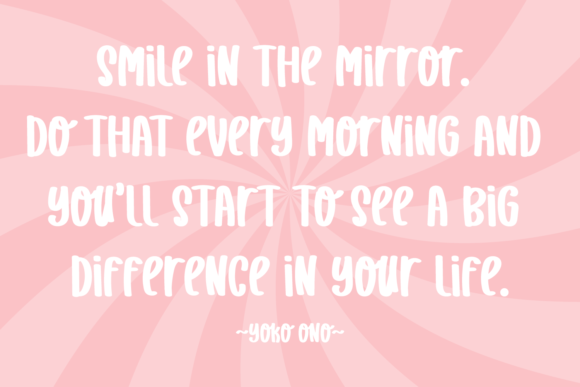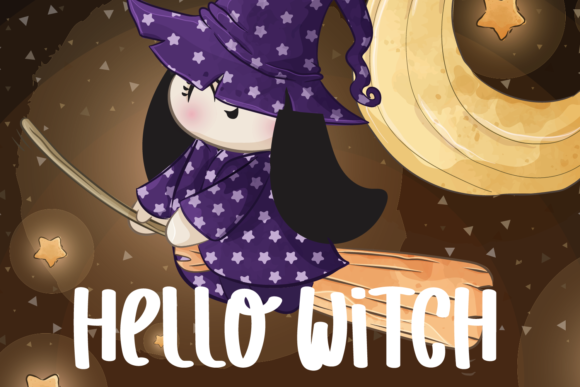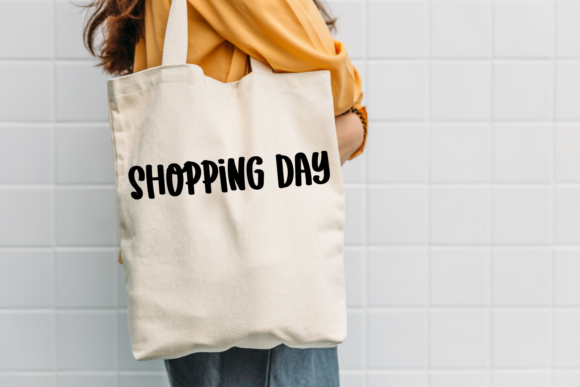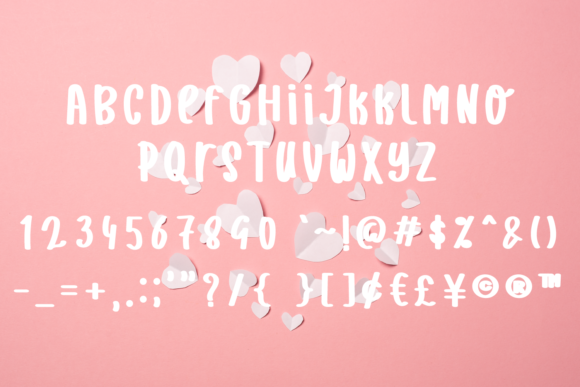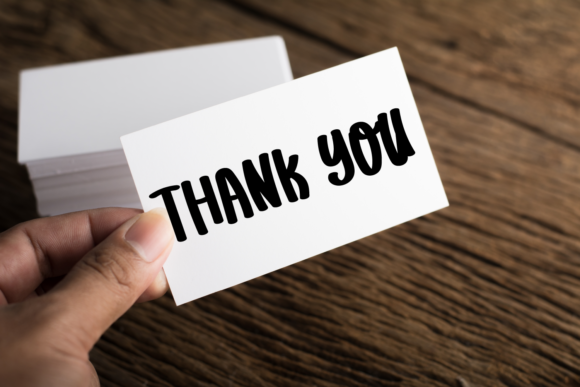
The Sweetest Addition to Your Design Arsenal
Have you ever been rummaging through your craft supplies, only to stumble upon a stash of colorful papers and fonts that instantly spark creativity? That’s exactly what happened to many designers when they discovered the Candy Witch Font – a delightful display font that brings a touch of whimsy to any project.
Whether you’re a seasoned graphic designer or a crafty hobbyist, the Candy Witch Font is a valuable addition to your toolkit. This friendly font is perfect for creating eye-catching greeting cards, designing engaging presentations, or even adding a pop of color to your digital designs. Its playful and approachable nature makes it an ideal choice for projects that require a touch of warmth and personality.
Candy Witch Font Key Features
- Unique Characteristics: The Candy Witch Font features a whimsical, hand-drawn design with bold lines and playful flourishes, perfect for adding a touch of magic to your designs
- Style Options: The font comes in multiple styles, including Regular, Bold, Italic, and Bold Italic, offering versatility in design applications
Candy Witch Font Review
I recently had the chance to work with the Candy Witch Font, and I must say, it’s a real treat (pun intended). ✨ The font’s playful and whimsical vibe immediately caught my attention, and I was excited to see how it would perform in various design projects.
- ✨ The font’s bold and colorful aesthetic is perfect for creating eye-catching headlines and titles.
- ✨ The variety of font weights and styles offers plenty of options for customizing the look and feel of your design.
- ✨ The font’s quirky and charming personality makes it a great choice for projects that require a bit of whimsy and fun.
- ⚠️ The font may not be suitable for formal or professional projects, as its playful vibe can come across as unprofessional.
- ⚠️ Some users may find the font’s boldness and colorfulness overwhelming or difficult to read in certain contexts.
- ⚠️ The font’s uniqueness can also make it difficult to pair with other fonts or design elements, requiring more creative effort to create a cohesive look.
Overall, I think the Candy Witch Font is a great addition to any designer’s toolkit, but it’s essential to use it judiciously and consider the project’s tone and style before incorporating it. With the right project, this font can be a real showstopper!
For best results, use Candy Witch Font for titles and headings to add a touch of whimsy to your design.
Use Candy Witch Font for creative projects, such as invitations, posters, or social media graphics.
Use Candy Witch Font for creative presentations, such as party invitations or event promotions.
Candy Witch Font is perfect for:
Party invitations and decorations
Food and dessert branding
Children’s products and packaging
Whimsical and playful designs